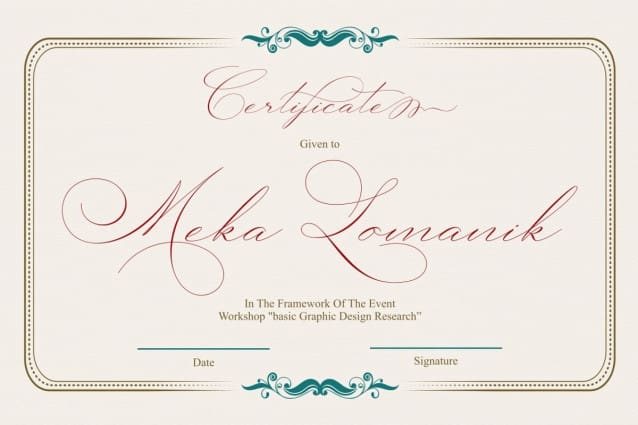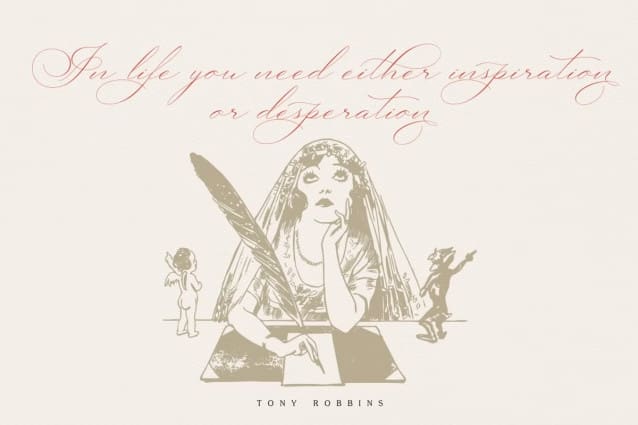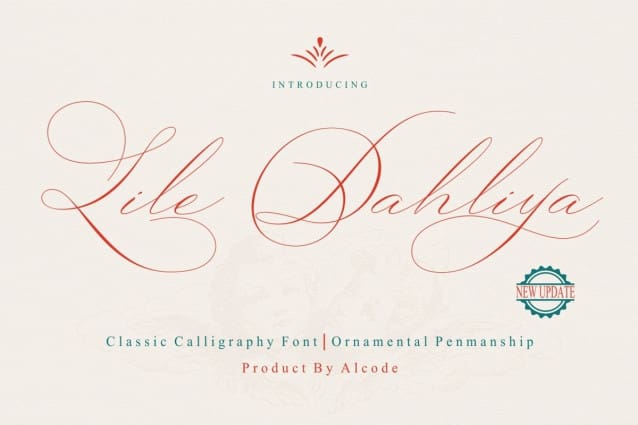
Lile Dahliya Font
Lile Dahliya Font is a classic font, I built it with my relaxed hands. designing a classic font but having a modern element in it, which makes it particularly suitable for wedding media, book covers, greeting cards, logos, branding, business cards and certificates, in fact for any design work that requires a clasik, formal or luxury look.
Try Lile Dayliya, enjoy the richness of OpenType features and let her fun and elegant excitement make you happy and enhance your creativity! You can use this font very easily.